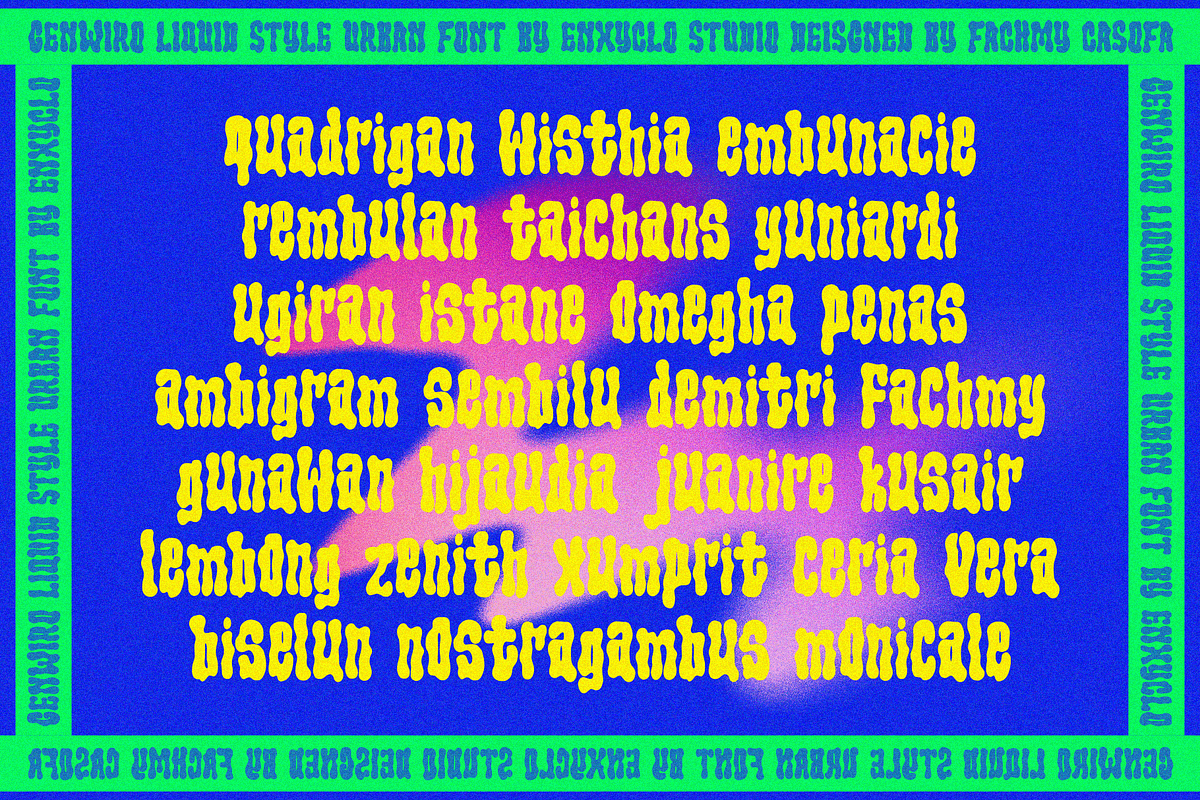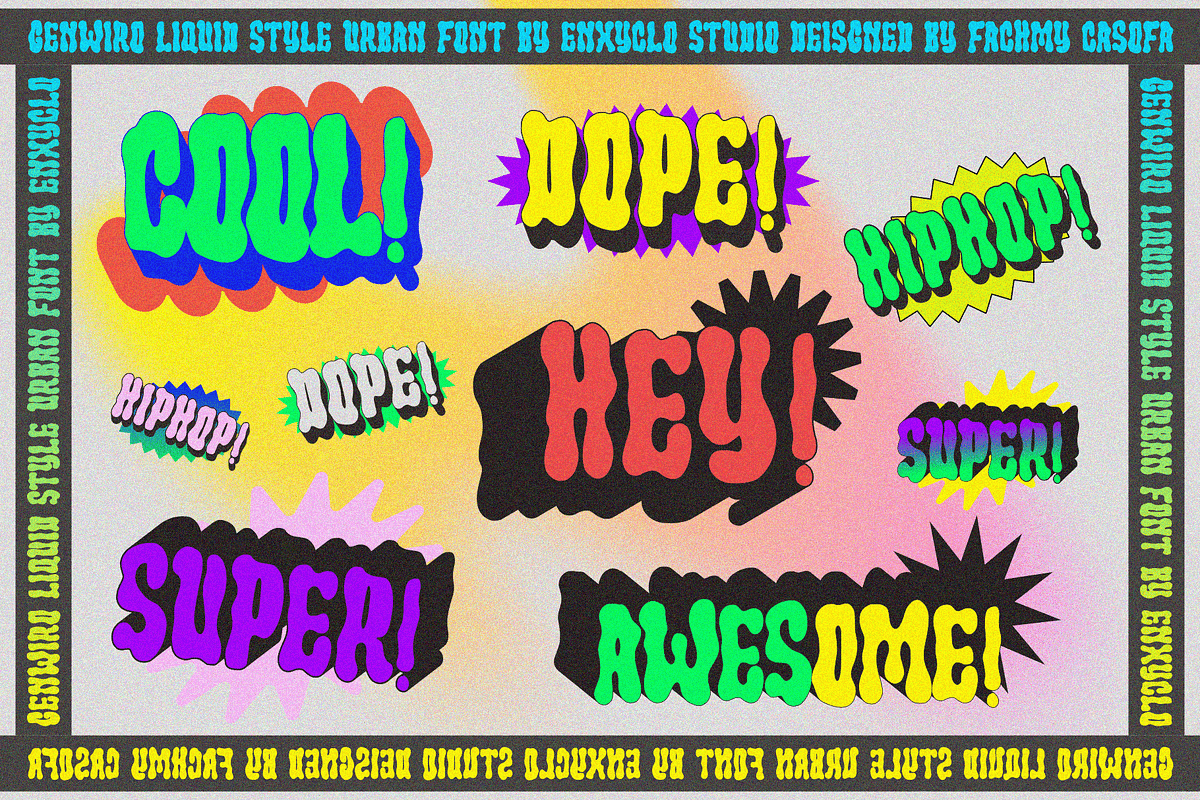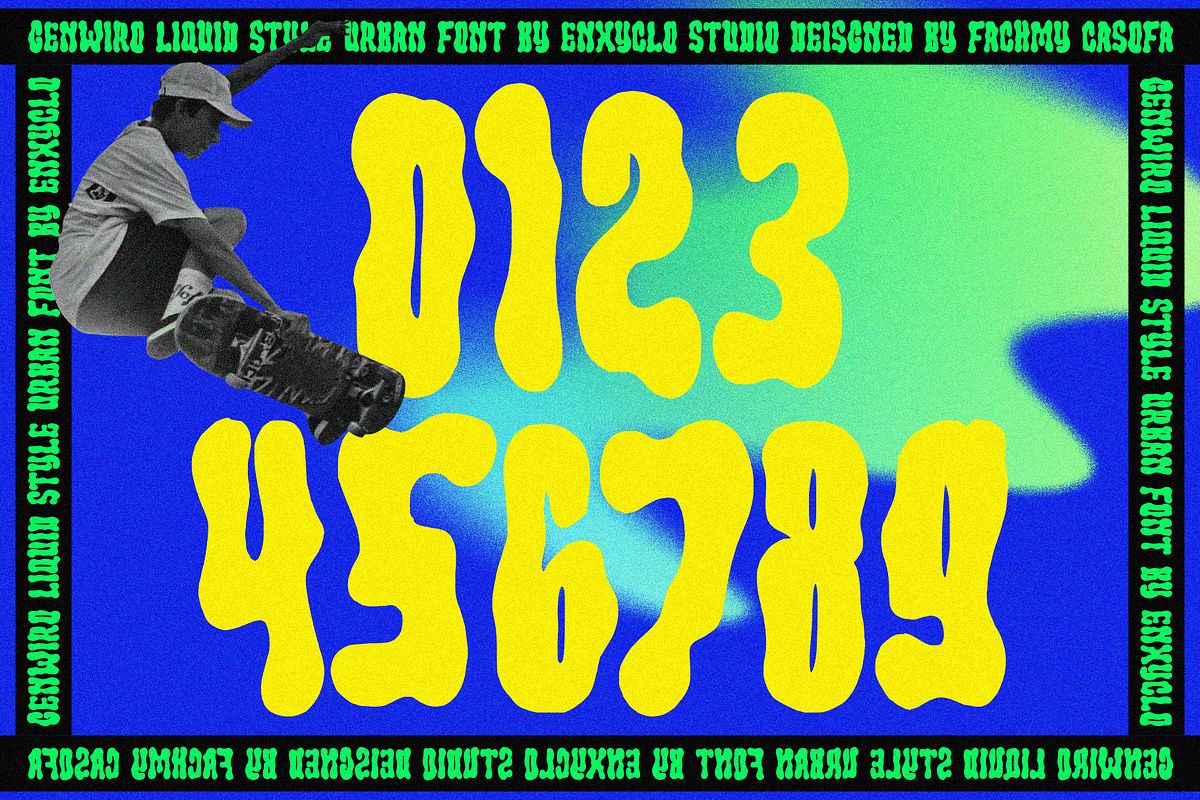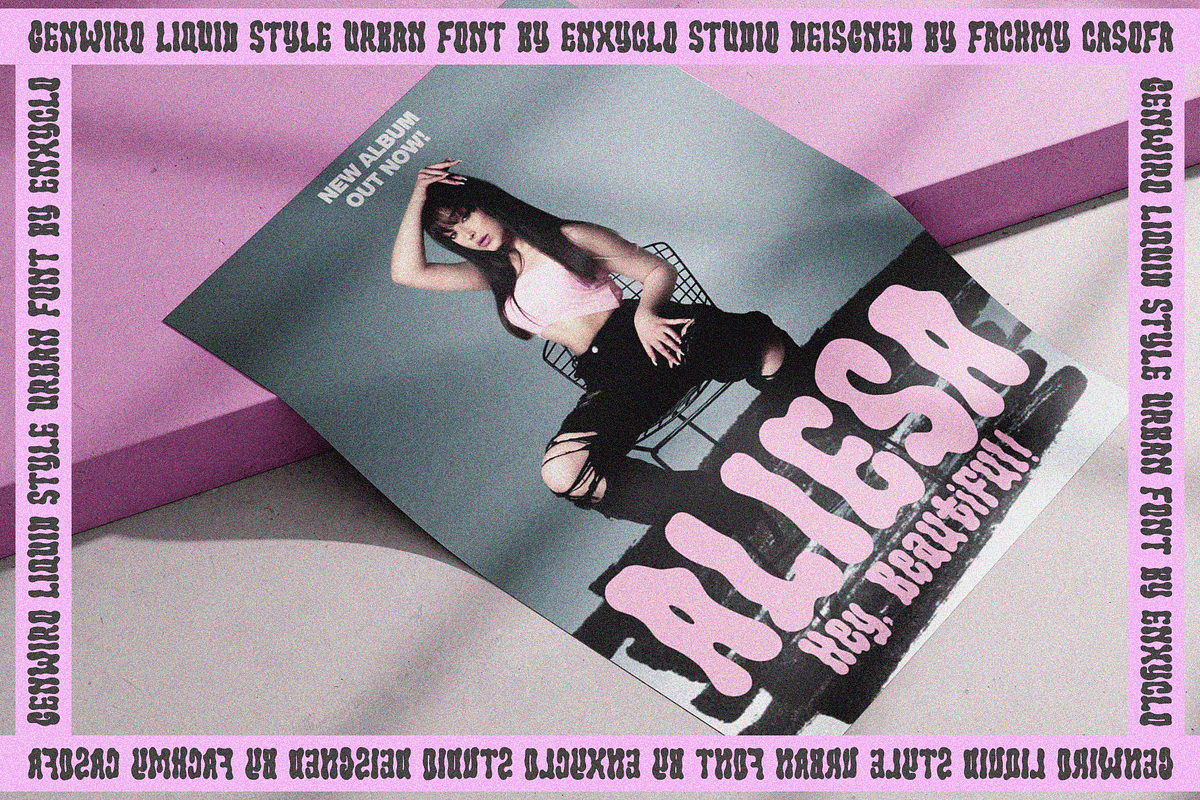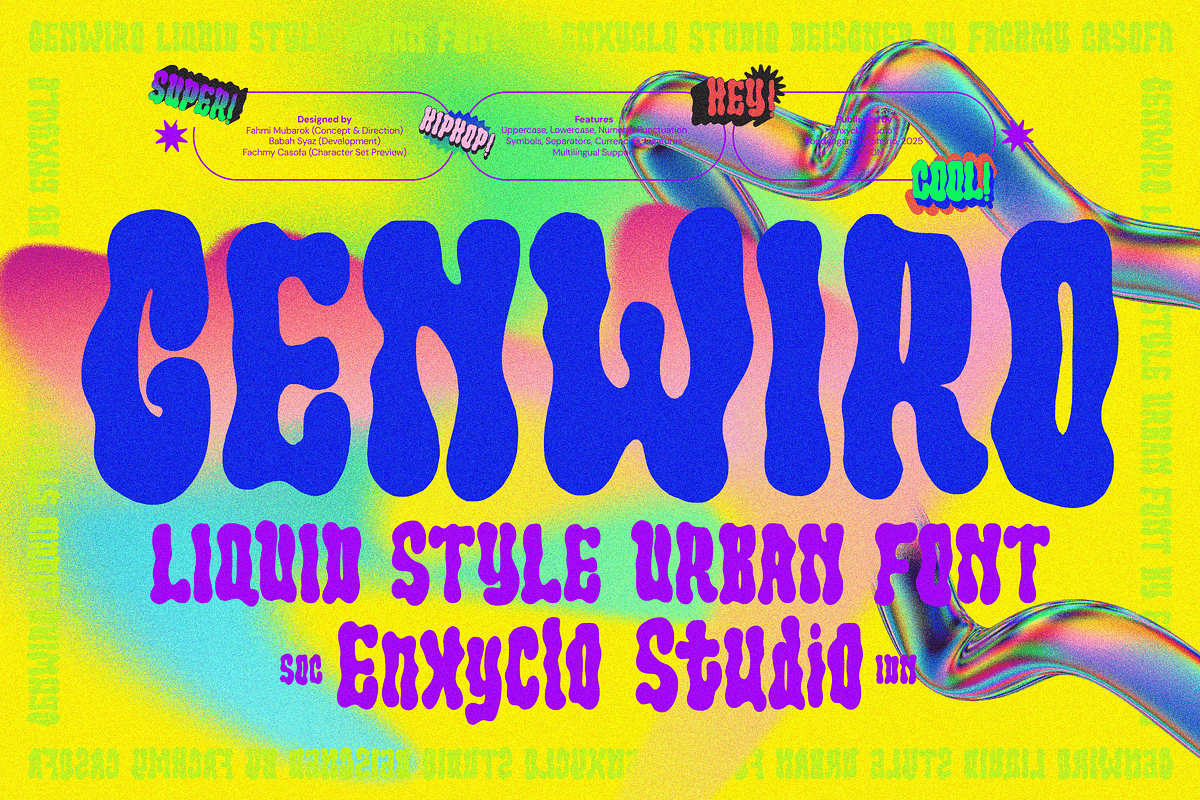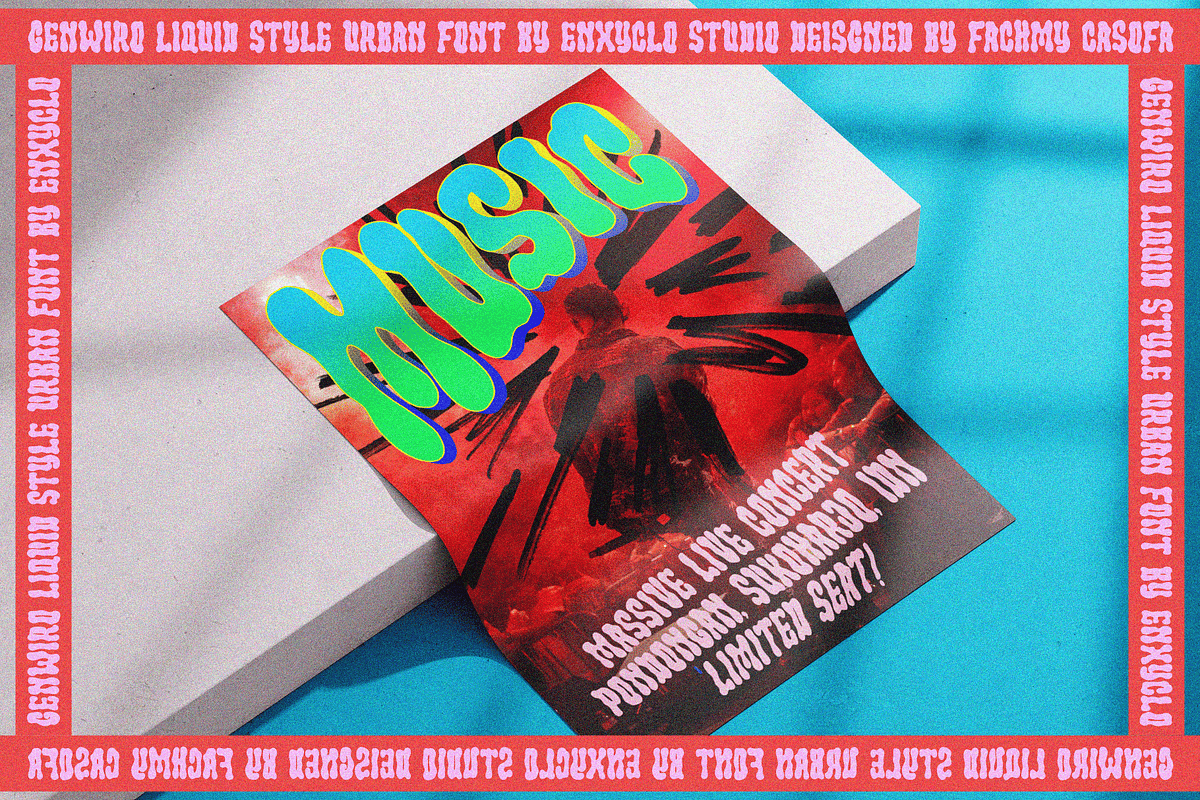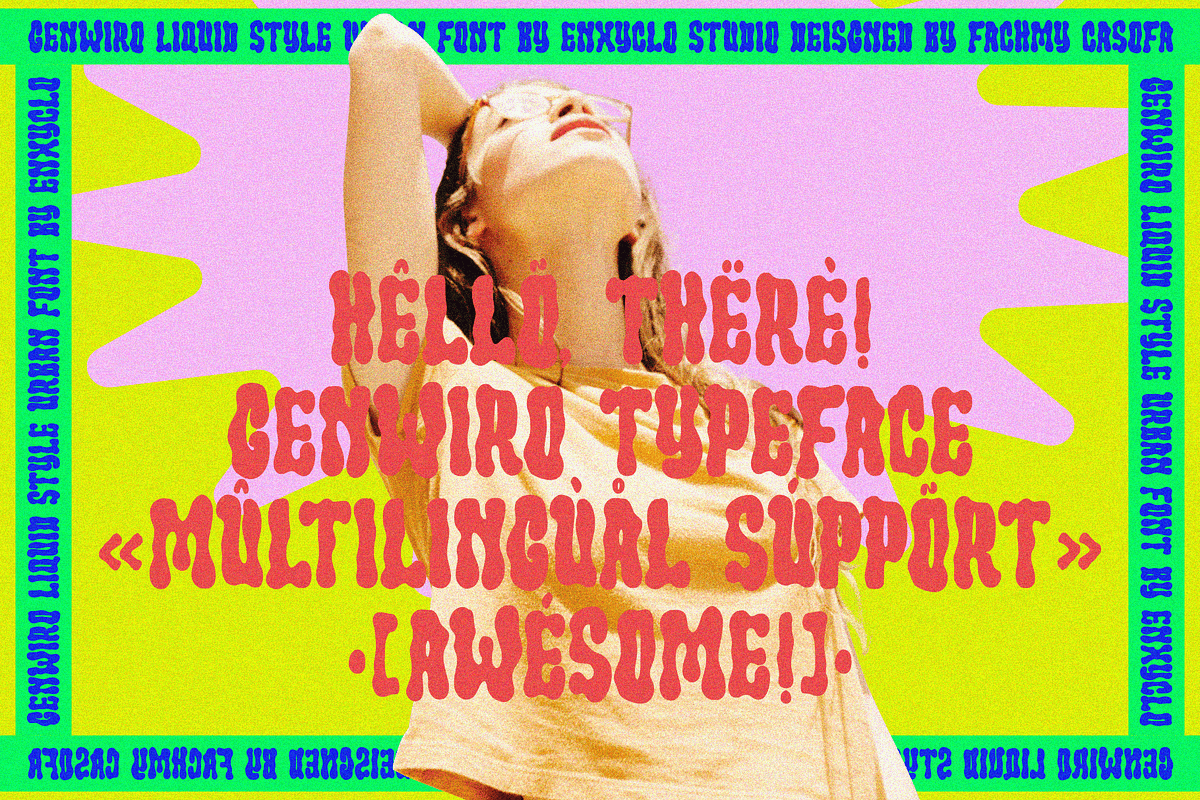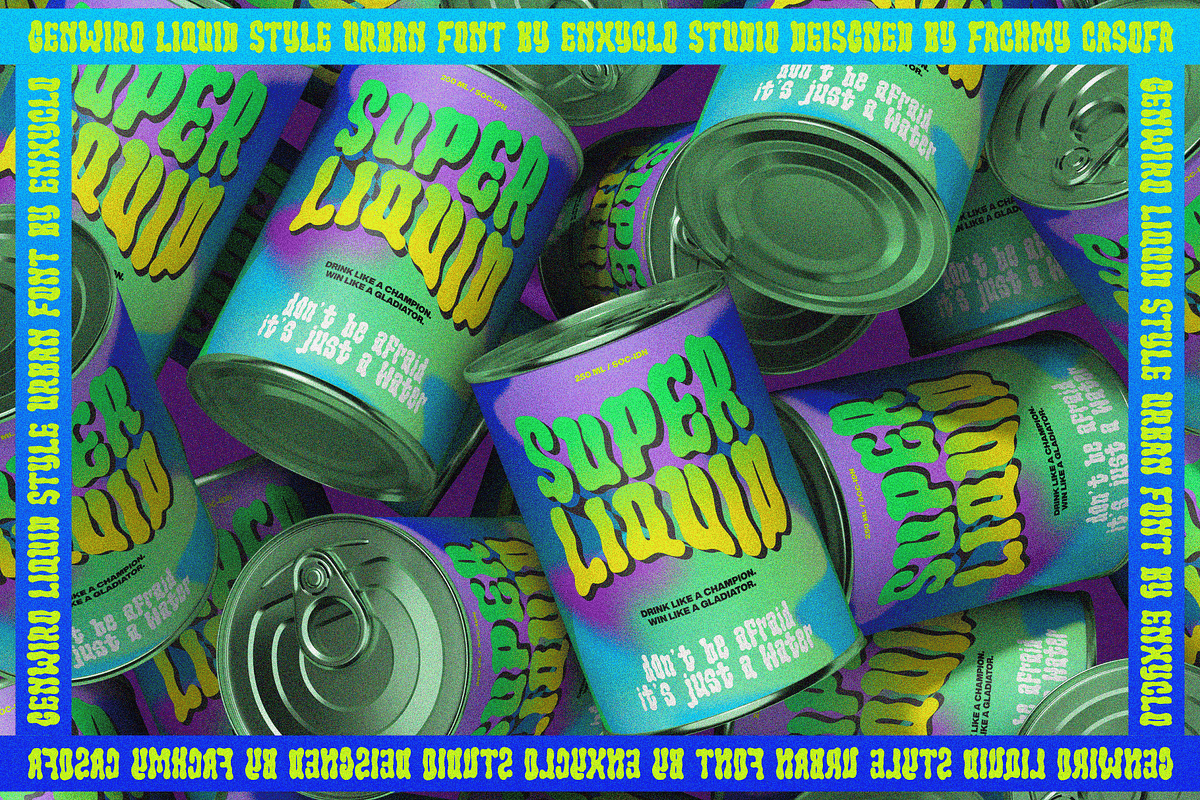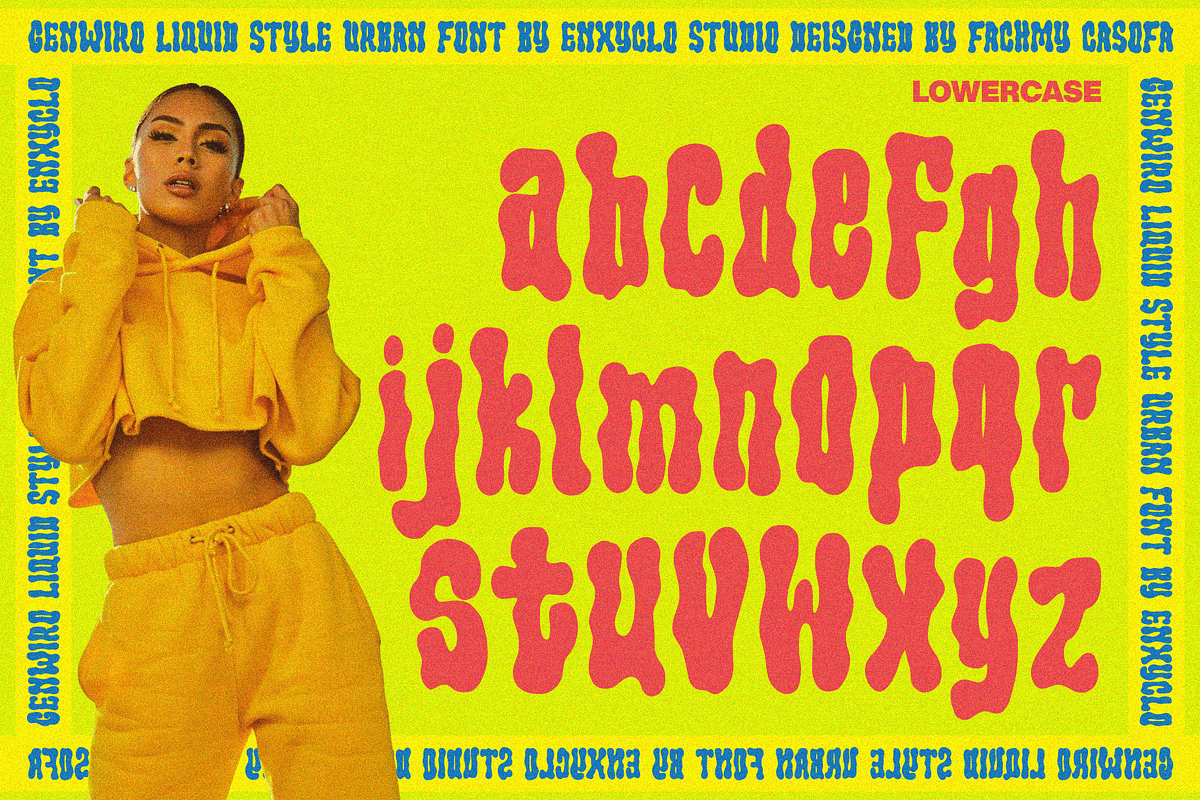
Genwiro — Urban Font
Genwiro is a Liquid Expressive Bold Urban Font that flows with energy, attitude, and artistic confidence. Hand-drawn with a free-flowing motion, it captures the rhythm of modern street culture and the raw beauty of urban creativity. Each stroke moves like liquid — bold, dynamic, and full of emotion. The letters drip and wave with personality, creating a fluid texture that stands out on every surface. This makes Genwiro the perfect choice for brands that want to express bold individuality and fearless style. From streetwear logos to editorial headlines, Genwiro brings a strong visual voice that feels authentic, rebellious, and fashion-forward. Whether you’re crafting a stylish brand, a music poster, or a bold social media layout, this font delivers a dynamic flow that commands attention.
- Symbols & Currencies
- Streetwear and fashion branding
- Music and lifestyle posters
- Editorial magazine layouts
- Bold logo and packaging design
- Social media graphics and ads
- Modern art or creative campaigns
- Sportswear or urban merchandise
- Quote and headline typography
- Trendy product design
- Creative portfolio or lookbook titles